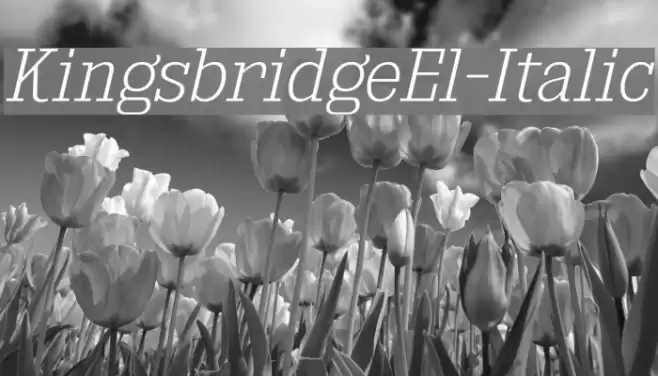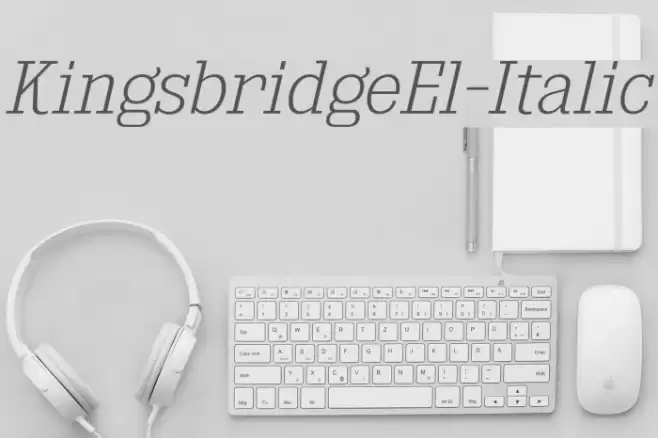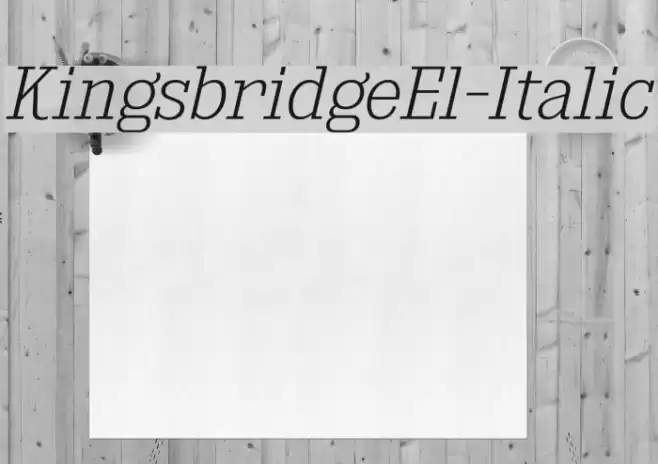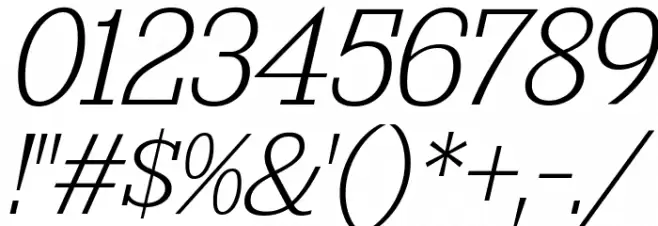
KingsbridgeEl-Italic Font
KingsbridgeEl-Italic Description
This elegant serif font features a refined italic style, characterized by its smooth, flowing curves and slightly slanted letters. The uppercase letters are tall and distinguished, while the lowercase letters maintain a consistent, graceful appearance. The numerals are clear and easy to read, complementing the overall sophisticated look. Special characters are well-integrated, maintaining the font's cohesive style. The font's design is both classic and modern, making it versatile for various applications.
An elegant serif italic font with smooth curves and a classic yet modern style from Serif fonts.
- Proposed Projects: Ideal for use in editorial design, luxury branding, wedding invitations, and elegant website headers.
- Overall Style: Classic